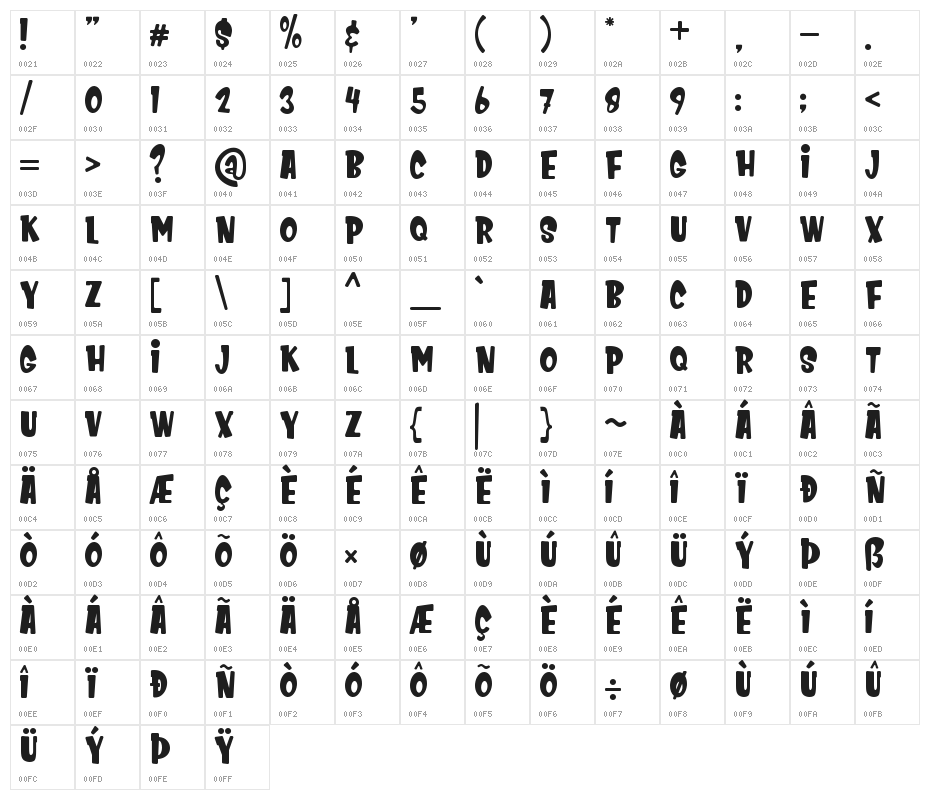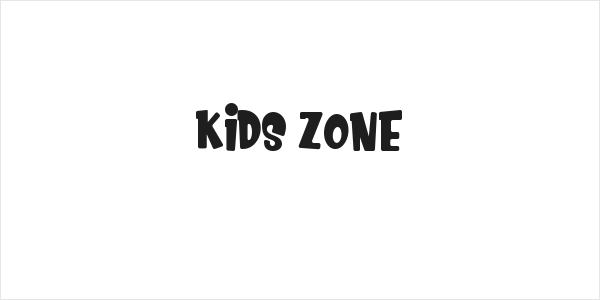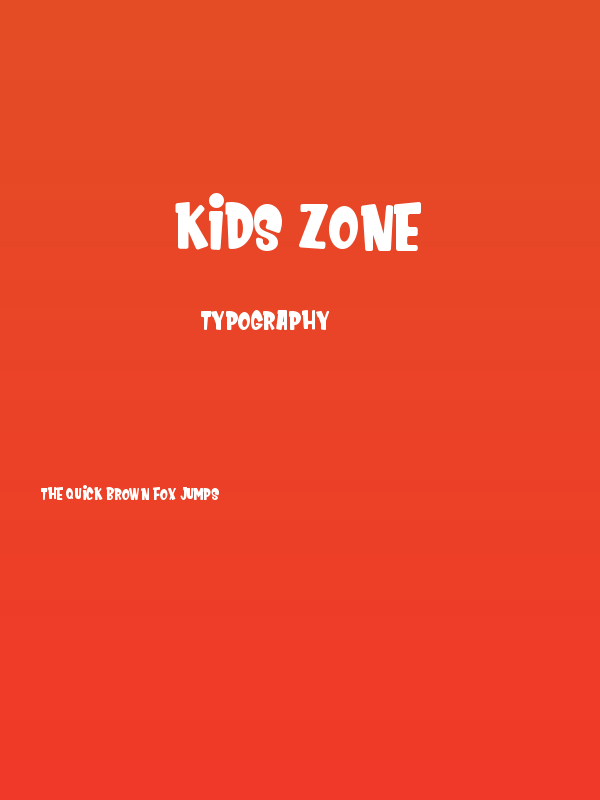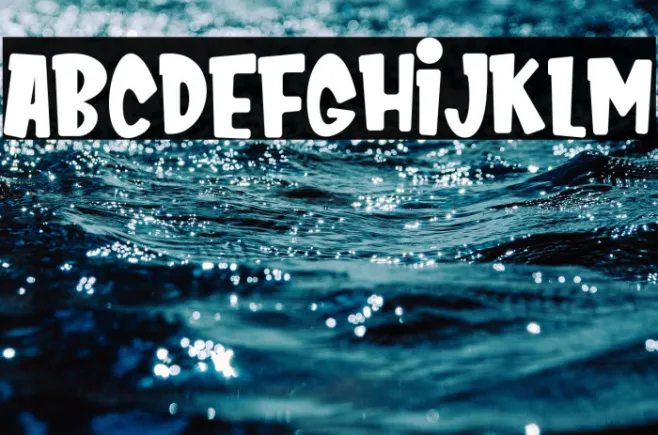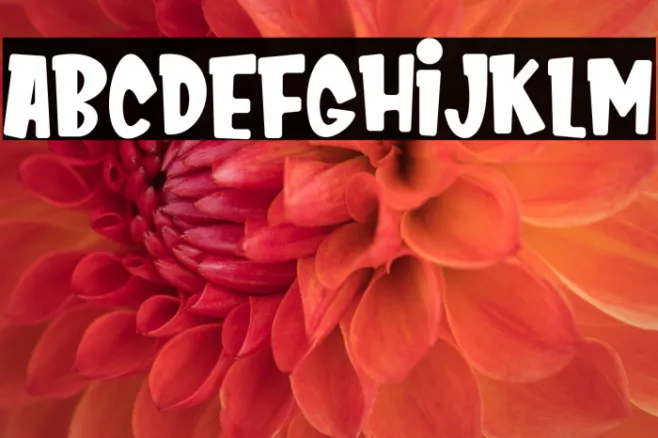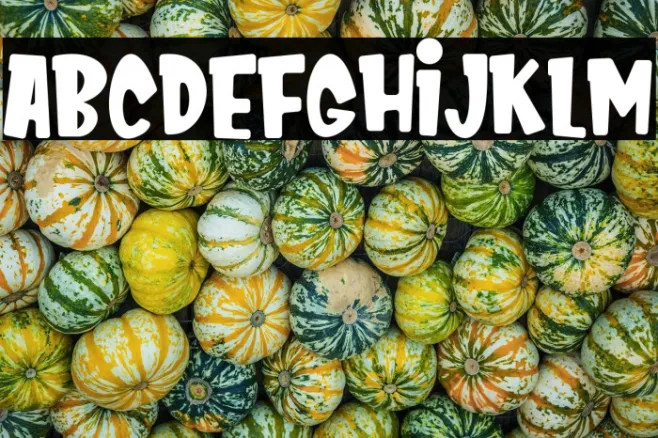
Kids Zone Font
Kids Zone Description
This playful and bold font features thick, rounded characters that convey a sense of fun and energy. The letters are slightly irregular, giving them a hand-drawn appearance that adds to their whimsical charm. The uppercase and lowercase letters maintain a consistent style, with exaggerated curves and a slightly condensed form. The numbers and special characters follow the same playful design, making this font ideal for projects that require a lively and engaging aesthetic. Its boldness ensures high visibility, making it suitable for attention-grabbing headlines and titles.
| Proposed Projects | Ideal for children's books, playful branding, party invitations, and educational materials. |